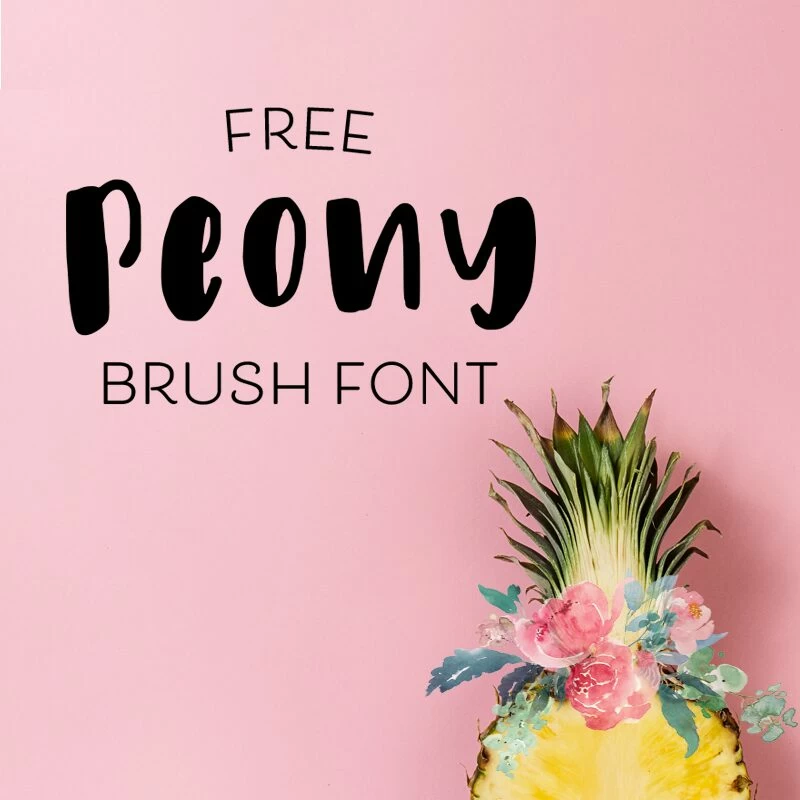
Free Peony Brush Font by Sarah Rudkin
Excited to share with you another wonderful commerical free font with you today! It is called Peony and I love that it is a “thick” font that is easy to read – perfect for your machine cutting projects!